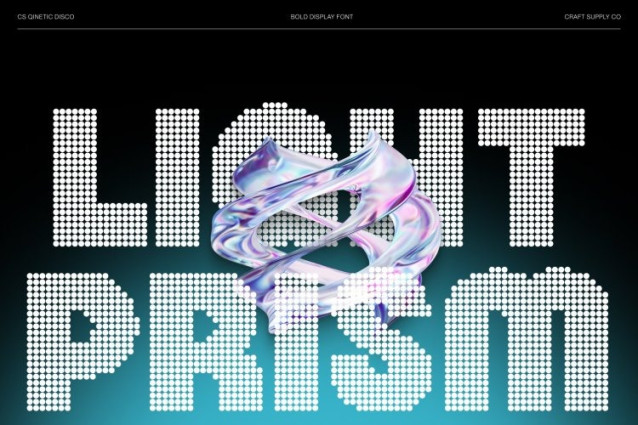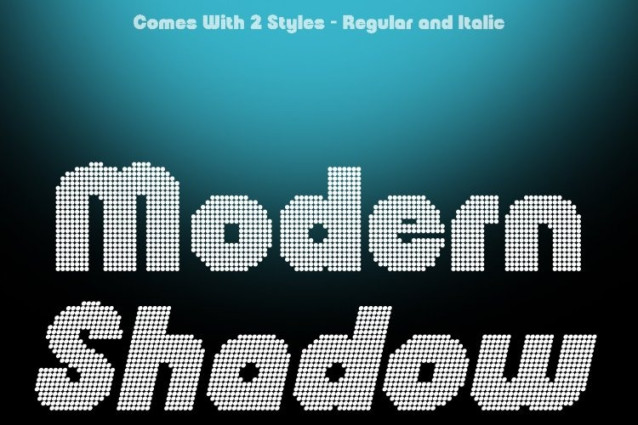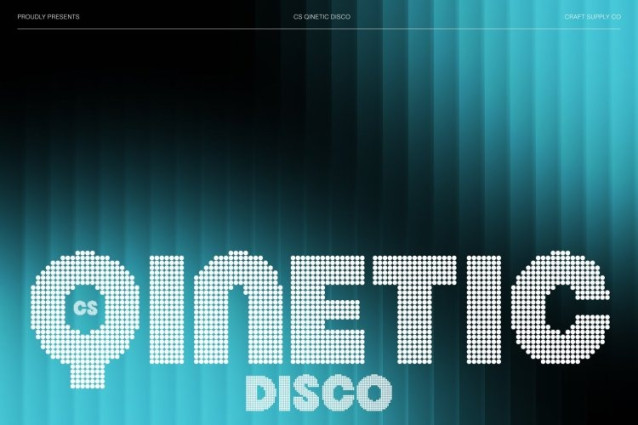
CS Qinetic Disco Font
CS Qinetic Disco Font is a bold modern sans serif display font that combines geometric precision with a vibrant disco-inspired dotted texture. Its strong, clean letterforms maintain a confident and structured appearance, while the sparkling dotted details introduce rhythm and visual excitement. This fusion transforms the font into a dynamic display typeface that feels both powerful and lively.
Geometric Precision with Luminous Detail
Built from balanced geometric shapes and clean lines, the font preserves clarity and modern elegance. The disco-style dots enhance each character with a shimmering decorative layer, adding depth and movement without compromising readability. The result is typography that feels precise yet visually energetic.
Contemporary Style with Impact
This font delivers a bold contemporary aesthetic that commands attention. Its confident structure and sparkling texture create a striking contrast, making headlines and display text feel vibrant, stylish, and memorable. The design radiates modern strength while maintaining a playful visual rhythm.
Perfect for Bold and Professional Designs
Ideal for branding, posters, logos, digital graphics, and editorial layouts, this font adapts seamlessly to projects that demand both clarity and visual impact. Its geometric foundation ensures professional structure, while the disco-inspired texture adds creativity and standout appeal.